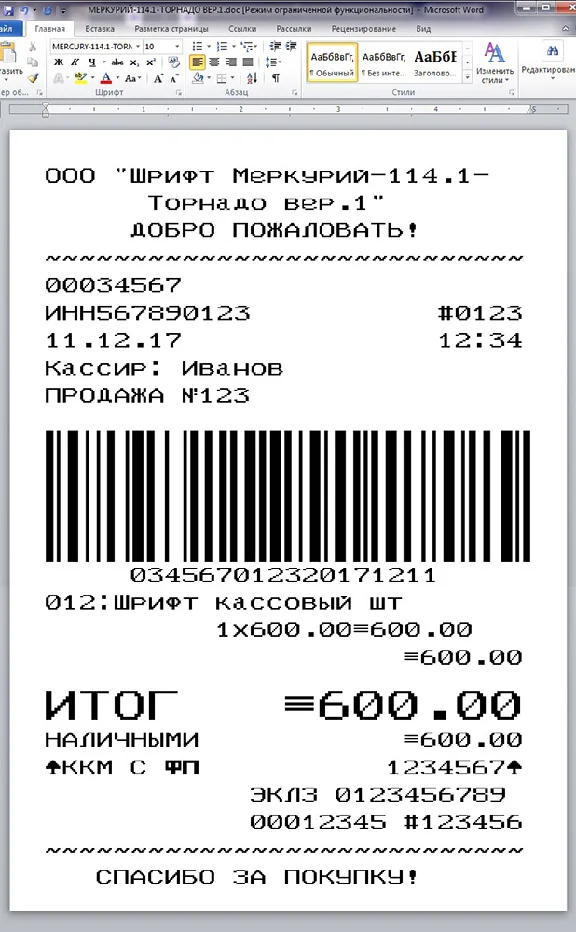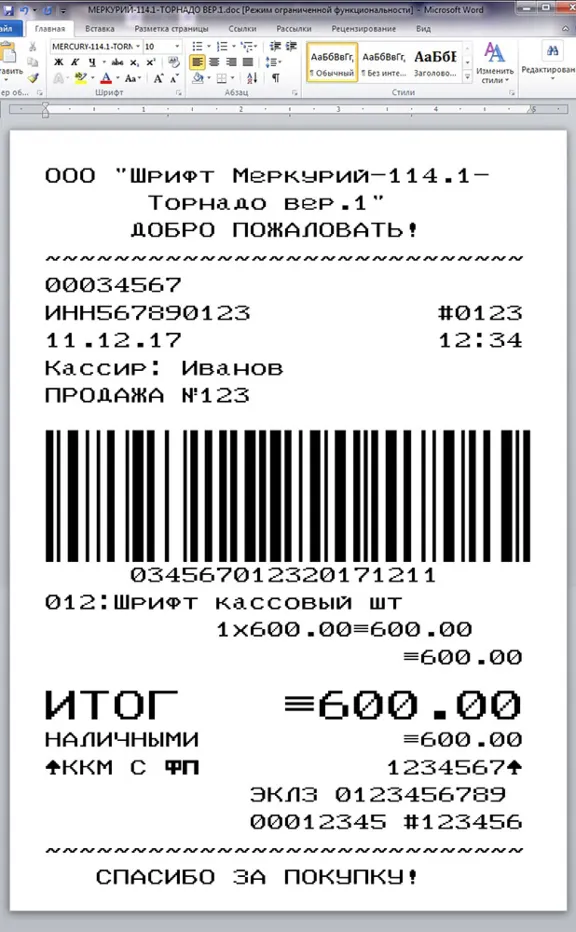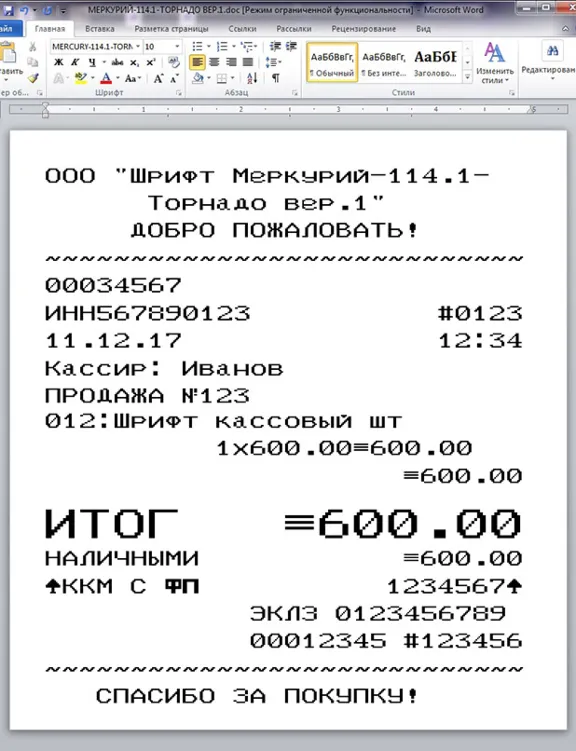
Font KKM MERCURY-114.1-TORNADO ver.1 (ttf)
Font cash register MERCURY - 114.1 - TORNADO (version 16x10 matrix) in TTF format (Russian and English letters) for use in Microsoft Word. The archive is the font in TTF format and check pattern. You just have to install a font in the system (usually C: \ WINDOWS \ Fonts), open the template and start editing. Print checks, preferably in the thermal printer, a cash Thermoband. Although you can print on inkjets and laser, with the ability to display the fax paper. Best quality, of course, when printing on thermal transfer.